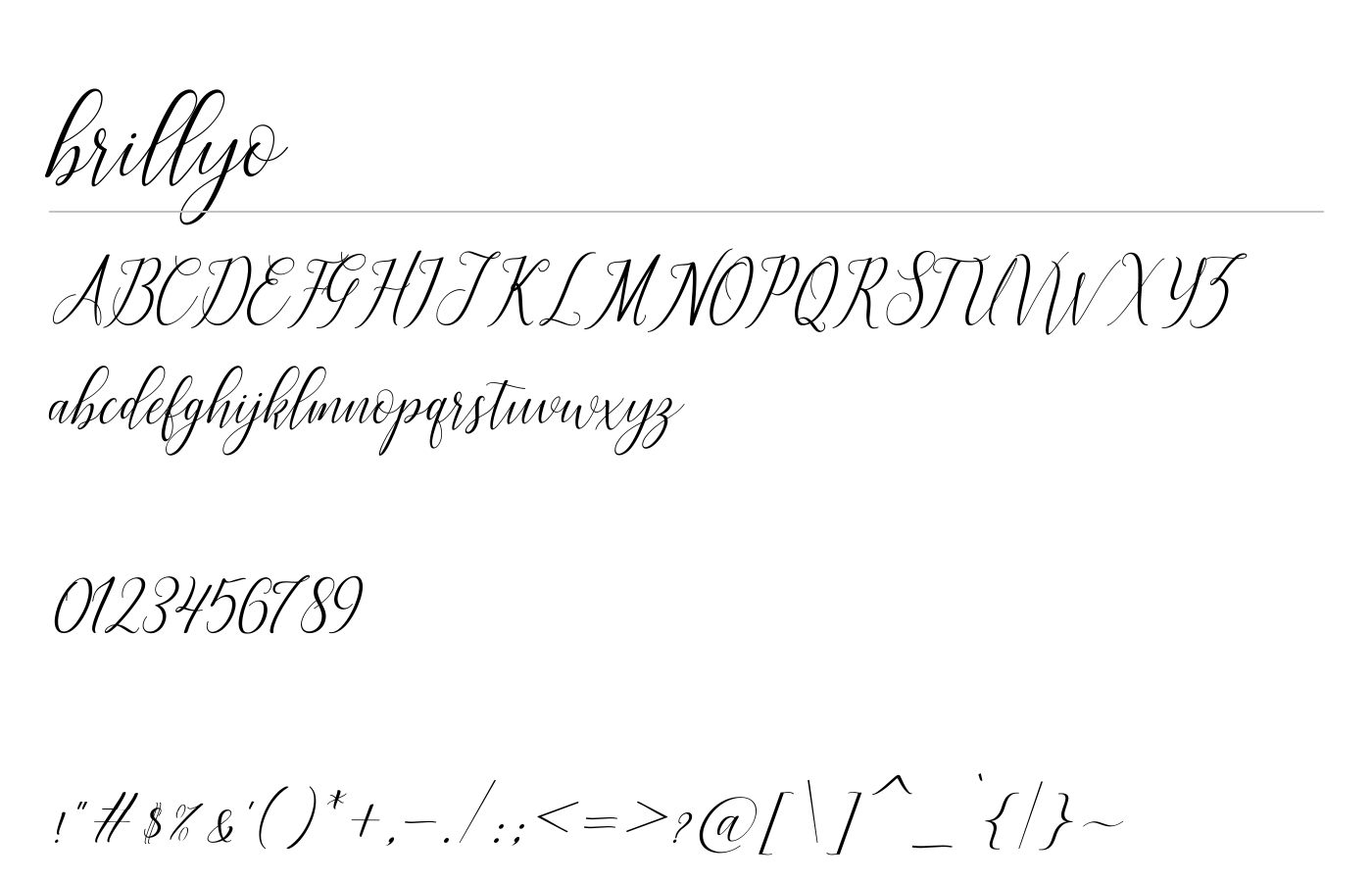
Brillyo is an elegant script font with delicate, flowing strokes that give it a refined and graceful appearance. Its thin weight and high contrast, combined with smooth, calligraphic letterforms, make it ideal for sophisticated branding, invitations, and stylish editorial use where a touch of classic beauty and femininity is desired. This font works well for elegant logos and decorative headlines, lending a sense of luxury and charm to any design.
About brillyo Font